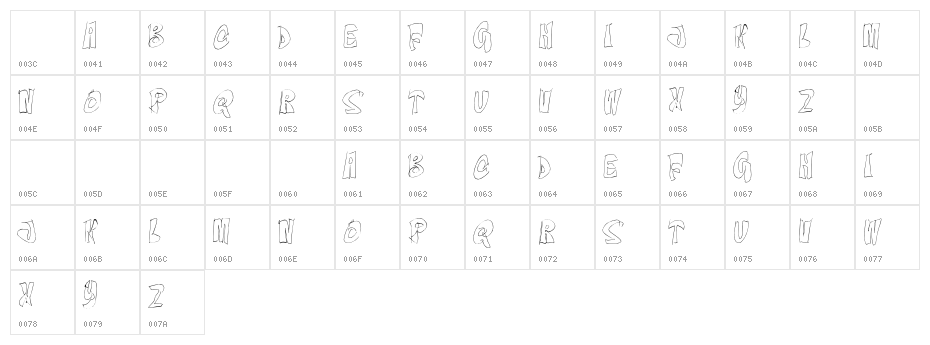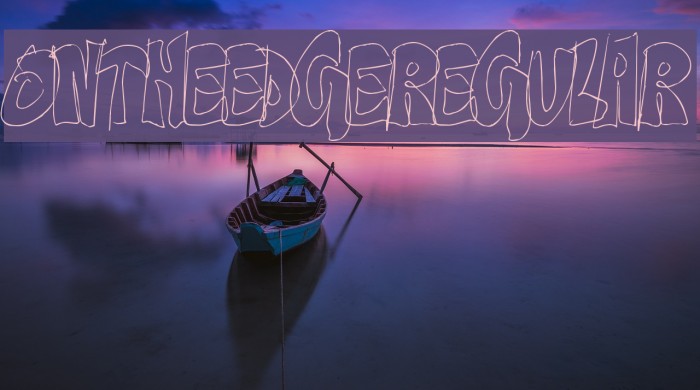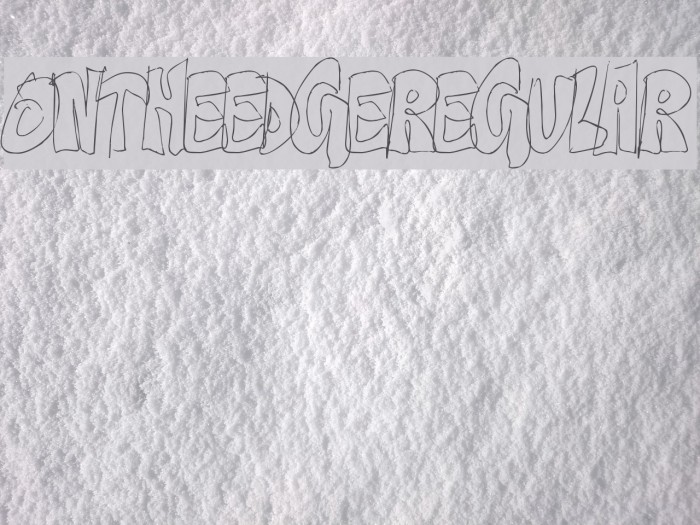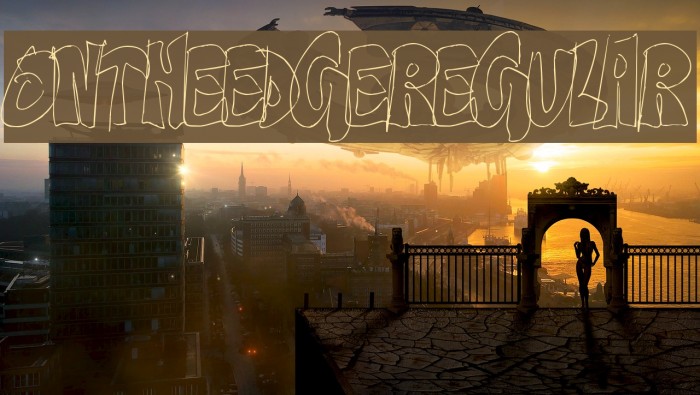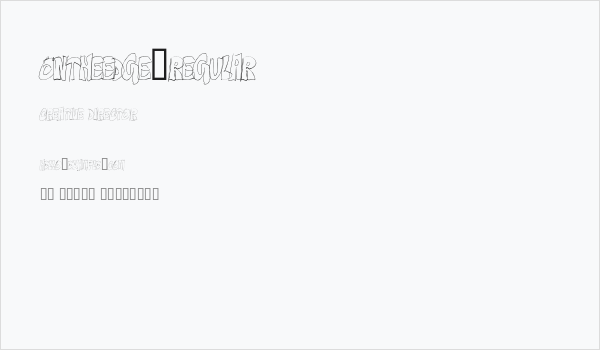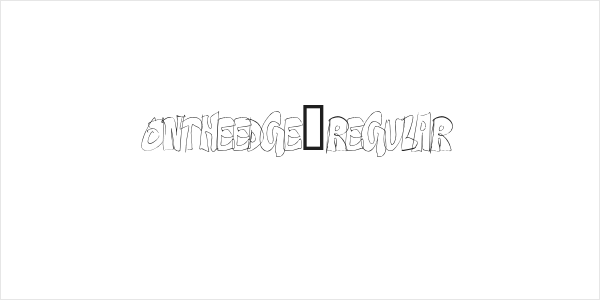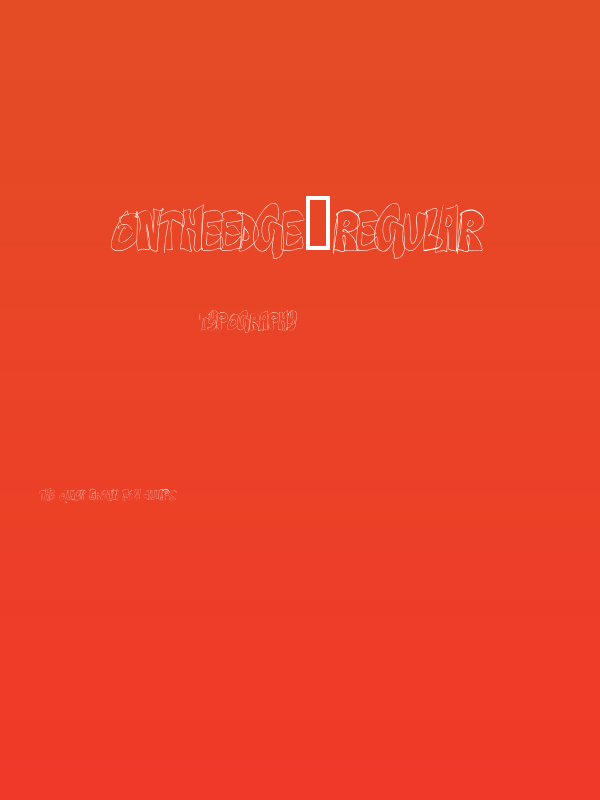
OnTheEdge-Regular Font
OnTheEdge-Regular Description
This font features a bold, graffiti-inspired style with dynamic and irregular strokes that give it an edgy and urban feel. The letters are characterized by their exaggerated curves and angles, creating a sense of movement and energy. The uppercase and lowercase letters maintain a consistent style, with a playful and rebellious aesthetic. The font's unique design makes it stand out, with each character appearing as if it has been hand-drawn with a marker. This font is perfect for projects that require a bold and unconventional look.
Overall StyleModern, Urban
Proposed ProjectsIdeal for street art designs, music album covers, urban-themed posters, and edgy branding projects.